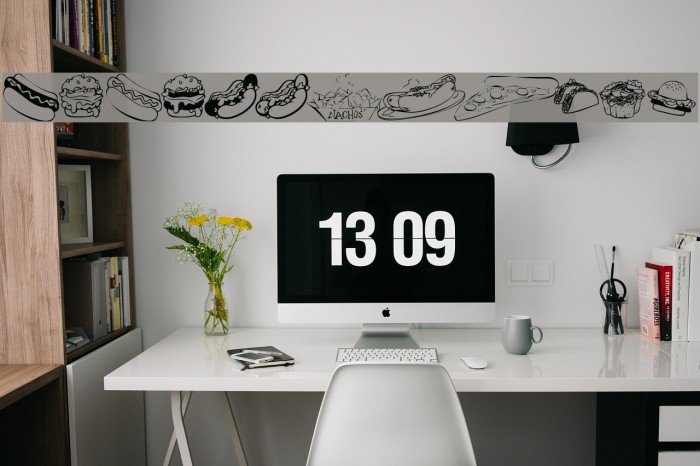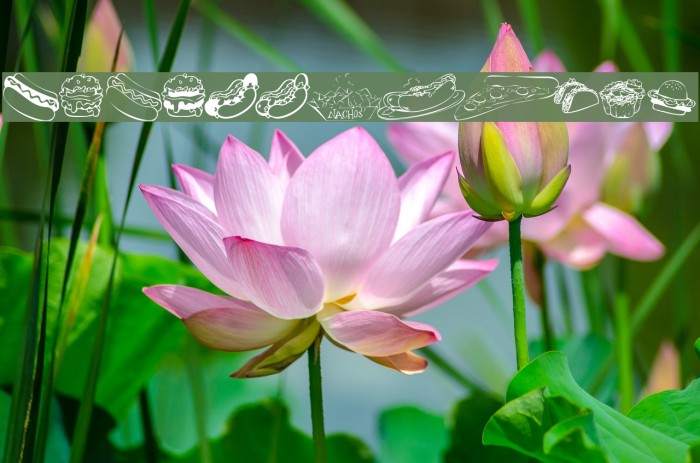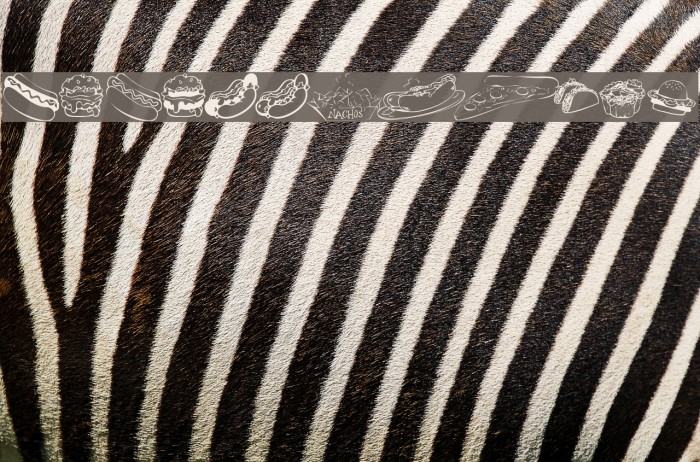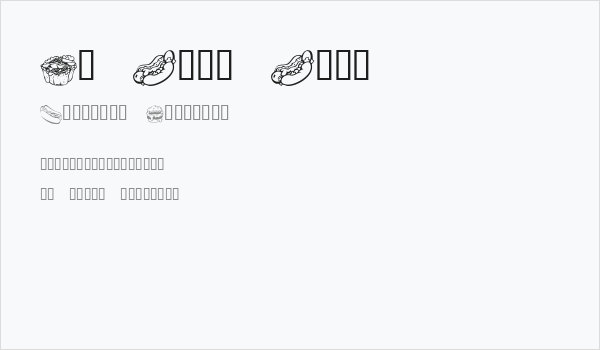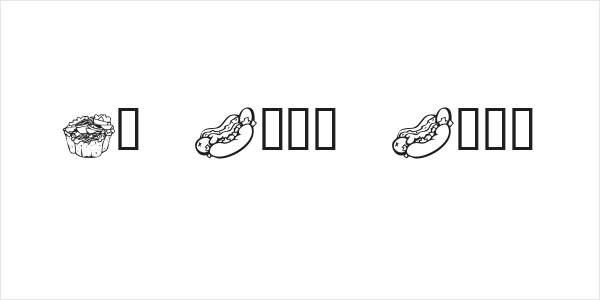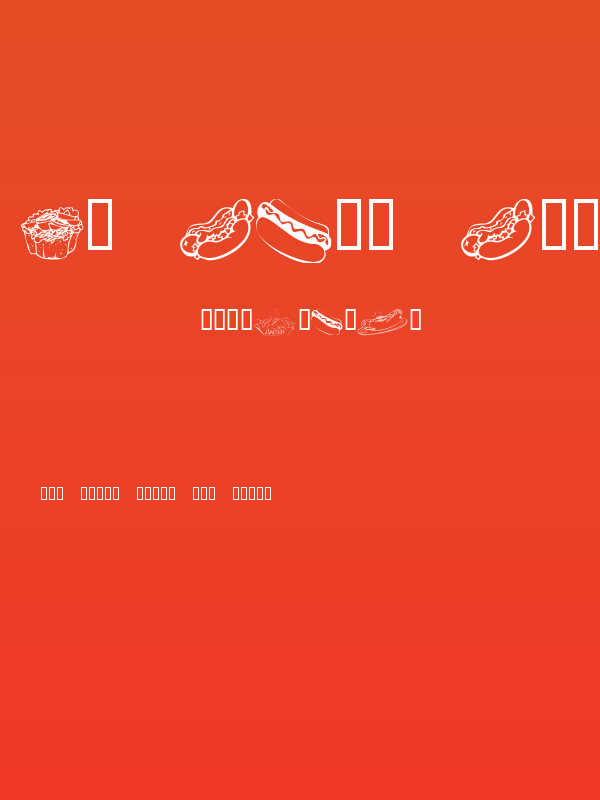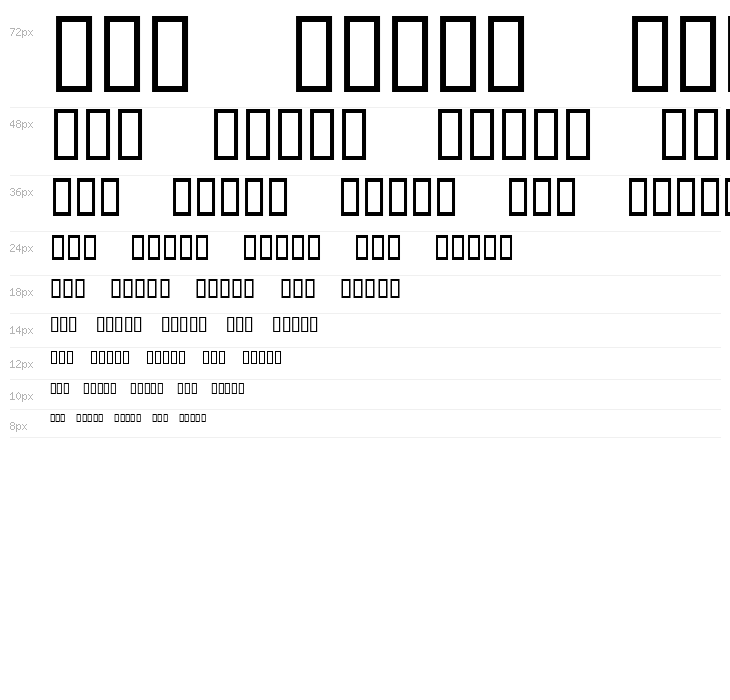
KR Fast Food Font
This is a decorative font featuring playful and whimsical illustrations of fast food items such as burgers, hot dogs, and pizza. Each character is represented by a unique food illustration, making it highly thematic and visually engaging. The font is designed to capture attention with its bold and cartoonish style, ideal for projects that require a fun and lighthearted touch. The characters are well-defined with clear outlines, ensuring readability despite the intricate designs. This font is perfect for creative projects that aim to evoke a sense of fun and playfulness.
A playful, food-themed decorative font with cartoonish illustrations.
- Proposed Projects: Ideal for children's menus, food blogs, playful branding, and themed party invitations.
- Overall Style: Playful, Fun, Thematic
- Use Case: Logos, Headlines, Themed Events